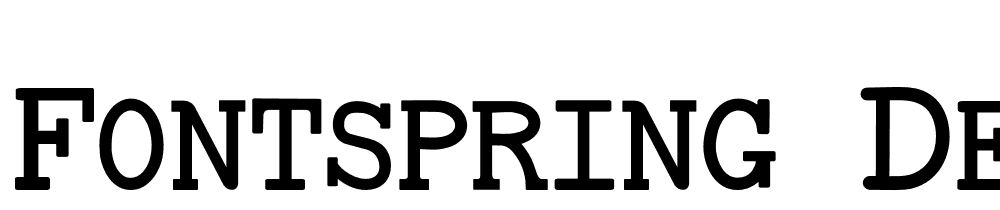
Fonty-Demo
About Fonty-Demo
Fonty-Demo is a captivating typeface with a perfect blend of elegance and sophistication. The font features smooth curves and sharp angles, creating a harmonious balance between modernity and tradition. Let’s dive into the world of typography and explore the intricate details of this stunning font.
Starting with the anatomy of Fonty-Demo, we notice the elegant APERTURE and intricate APEX that add a touch of sophistication to each character. The ARC and ARM work together to create a smooth flow, while the ASCENDER and DESCENDER elongate the letters, giving the font a sense of spaciousness.
The font’s AXIS is perfectly balanced, showcasing a refined design that is both modern and timeless. The subtle BEAK and BILATERAL SERIF add a touch of flair to the characters, enhancing their overall elegance. The bold BOWL and delicate BRACKET create a striking contrast, making each letter stand out on its own.
As we move on to the counters, we notice a perfect blend of open and closed shapes, adding depth and dimension to the font. The CROSSBAR and CROTCH add a unique touch, while the DESCENDER and EAR bring a sense of whimsy to the overall design.
The FONT’s HAIRLINE is delicate yet precise, while the HEAD SERIF and JOINT add a touch of sophistication. The LEG and LIGATURE create a seamless connection between letters, enhancing readability and visual appeal.
Fonty-Demo’s design exudes a sense of warmth and familiarity, making it perfect for a wide range of design projects. Classified as serious yet friendly, elegant yet rugged, this font is versatile and captivating.
With its classic yet progressive design, Fonty-Demo is sure to make a statement in any project. Whether you’re looking for a font that is familiar yet daring, loud yet discreet, cold yet warm, Fonty-Demo is the perfect choice for all your typographic needs.